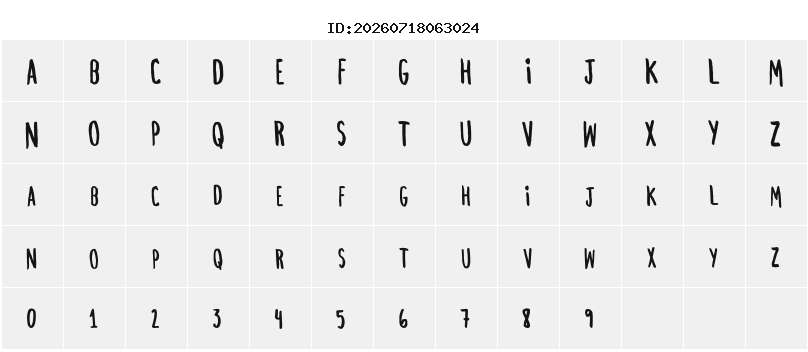
Chez Vous Preview
• Font Name: Chez Vous
• Full Font Name: ChezVous-Regular
• Designer: Bia Bittencourt
About Chez Vous.otf
Chez Vous.otf is a modern, elegant sans-serif font designed for ultimate readability and visual harmony. Perfect for branding, headlines, web design, and print materials.